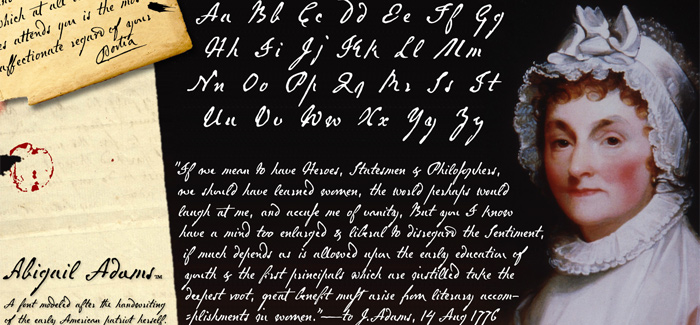
Abigail Adams font
Abigail Adams font by Brian Willson – the master of the historical penmanship’s digital recreation (Three Islands Press, check also the exquisite Botanical Scribe font) is a digital restoration of the Abigail Smith Adams’s handwriting. Following is Brian Willson’s story about passing historic heritage to the contemporaries in the digital era:
““My Dearest Friend” is how she began nearly all her letters to her husband, John. I refer, of course, to Abigail Smith Adams, first Second Lady and second First Lady of the United States. Her famous correspondence with John Adams produced nearly 1,200 letters over a span of some 40 years, leaving us with a priceless record of early American life – from household routines to war and politics to expressions of personal worry and devotion. Although Abigail’s was not the loveliest hand, I found it sure and expressive, as befitting her extraordinary sway and intelligence; it also carries a genuine flavor of the period.”